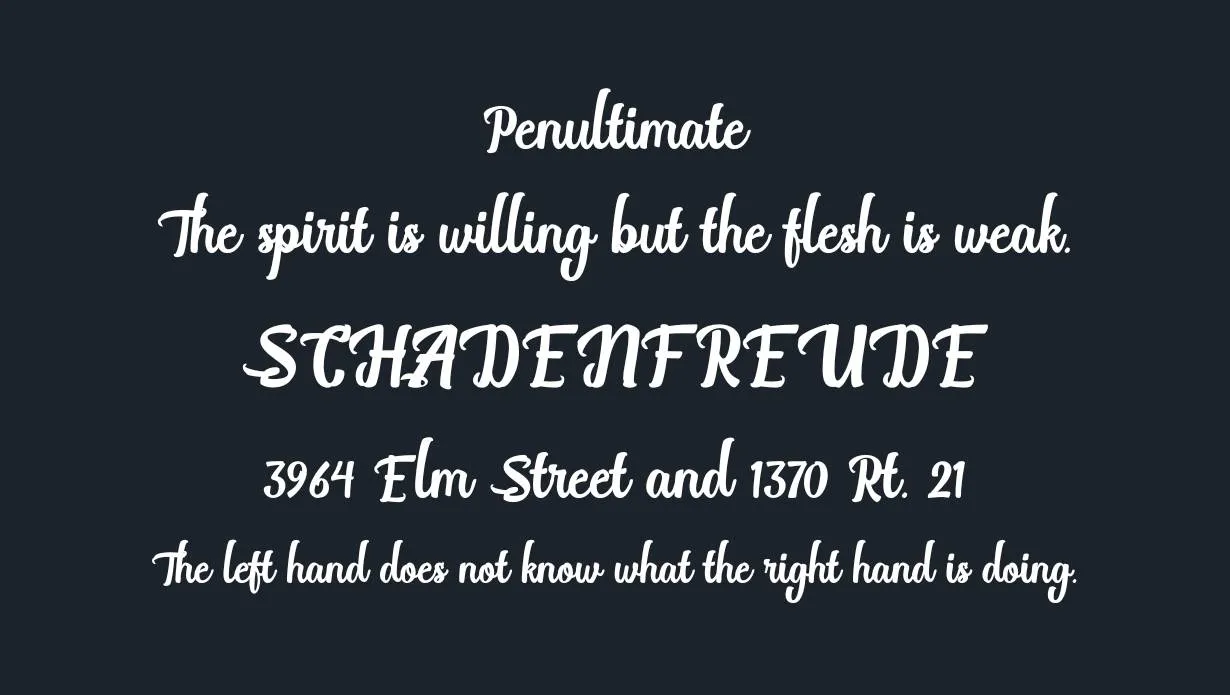
Break Stones Pro Font Free Download
The font “Break Stones Pro,” created by Jason Vanderhill, is a strong and striking typeface.
It gives your words a solid and enduring appearance, making it ideal for headlines and titles that demand attention. The font’s strength lies in its robust design, creating a lasting impression on any project.
View of Break Stones Pro Font